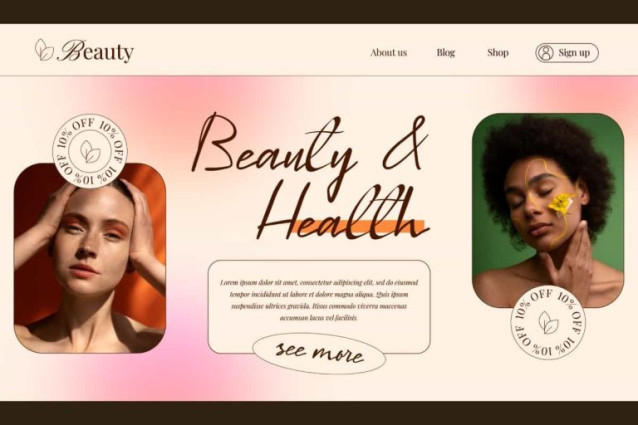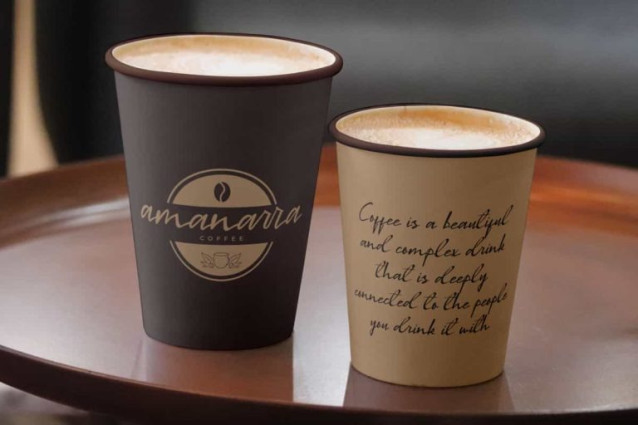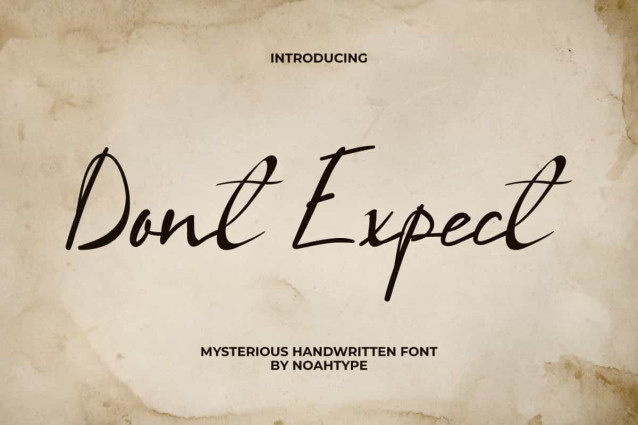
Dont Expect Font
Dont Expect Font is an old aesthetic handwritten signature font. This font can provide a beautiful look with a bit of a timeless vintage feel. It will be suitable for any industries, such as beauty product, event or wedding organizer, fashion, cafe, florist, advertisement, printing, publishing, real estate, restaurant, and more!
Dont Expect Font includes full set of Uppercase and Lowercase Basic Characters, Numerals, Punctuation and Symbol. This beautiful font will be perfect in your various designs, such as invitation, stationery, brochure, custom design, gift box, greeting or thank you card, invitation, label, menu, poster, quote, screen printing, signage, website, and more!